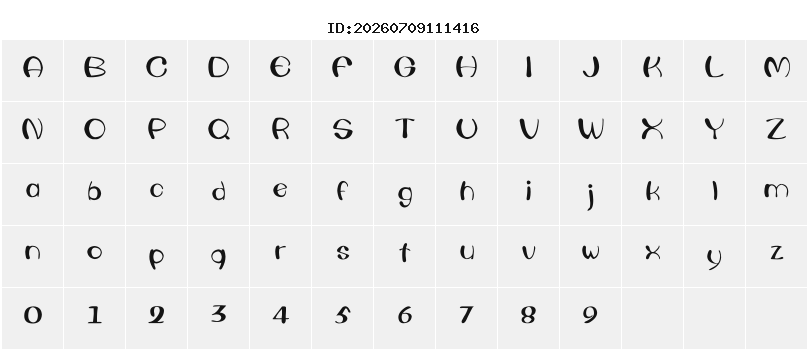
字体视界法棍体 Preview
• Font Name: 字体视界法棍体
• Font ID: 字体视界法棍体
• Full Font Name: 字体视界法棍体
• PostScript Name: ZTSJ-BaguetteFont
• Character Count: 7610
• Designer: 义启字库
About 字体视界法棍体.ttf
字体视界法棍体.ttf is a modern, elegant sans-serif font designed for ultimate readability and visual harmony. Perfect for branding, headlines, web design, and print materials.